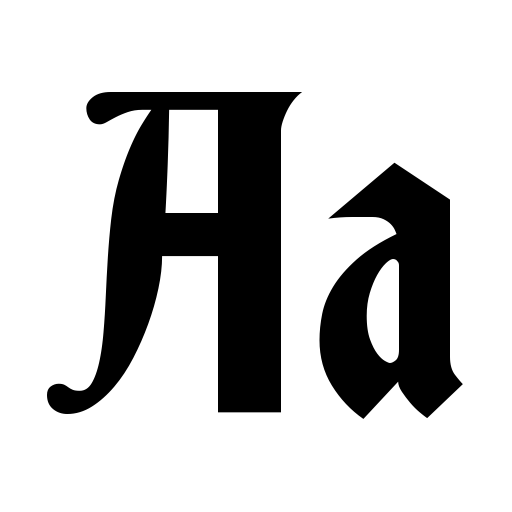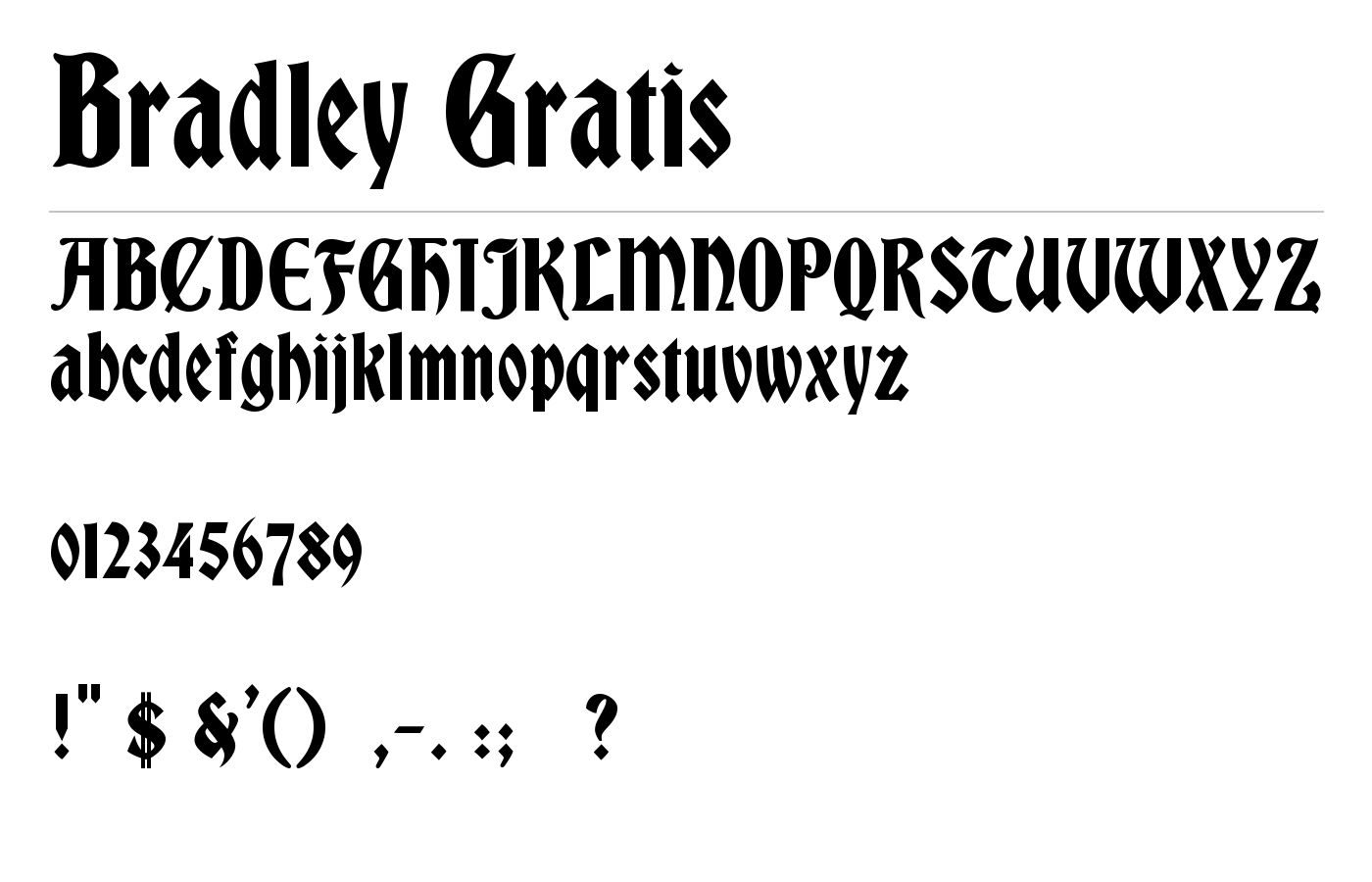
Bradley Gratis is a bold blackletter serif font with a strong, medieval character. Its sharp, angular strokes and condensed letterforms give it a dramatic, vintage feel, making it ideal for designs that need an old-world, gothic style. This font works best for logos, headlines, and decorative text where a historic or traditional mood is desired.
Bradley Gratis Font
About Bradley Gratis Font